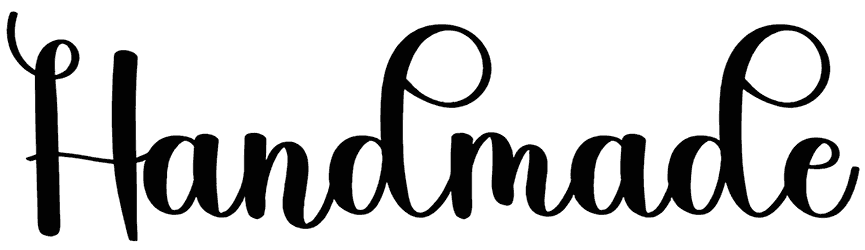
Handmade Font
Are you into attractive romantic designs with beautiful twisty words? As a handwritten font, Handmade, with its sweet and chic letters, is able to bring the same mood to your design. This script font is so close to the full coverage of characters and can be harmonized with many items, such as greeting cards, planners, logos, magazines, and the like.